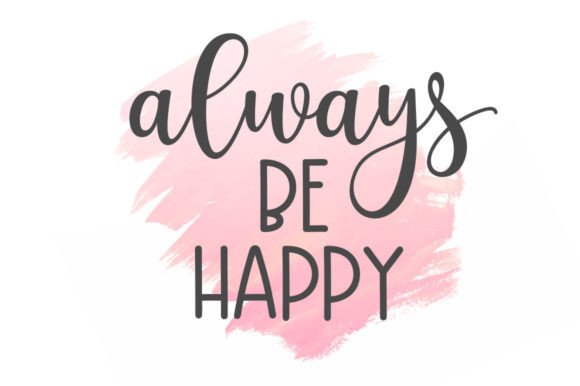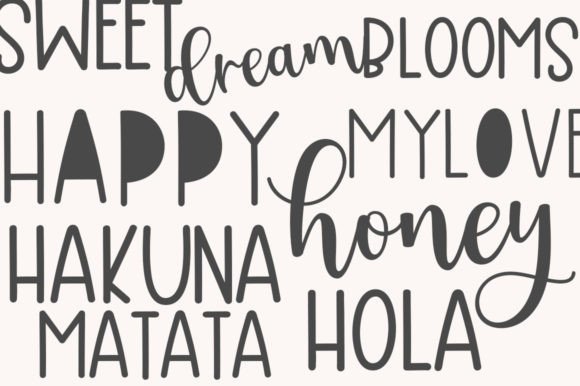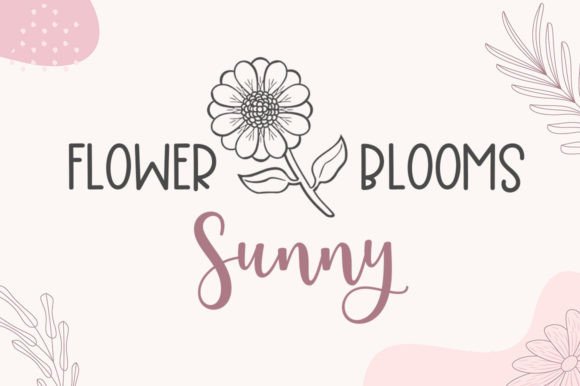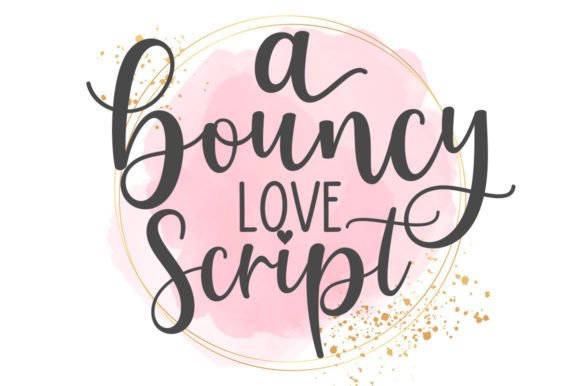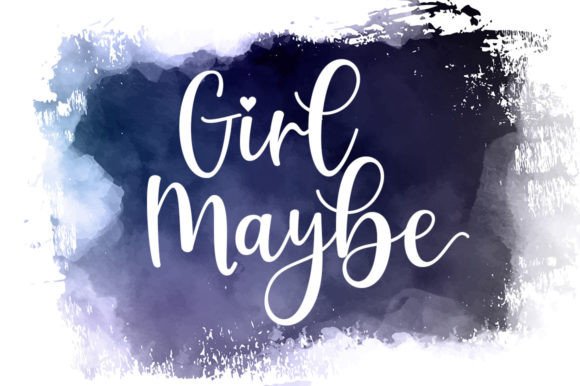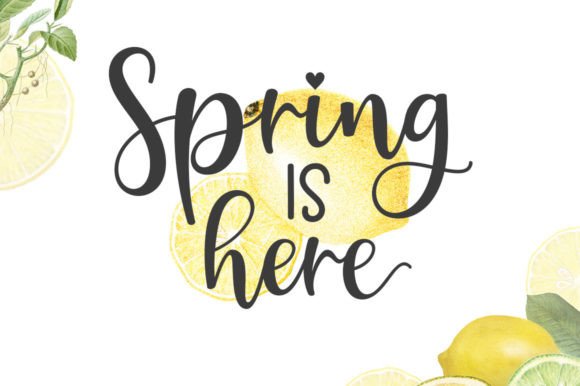
Discover the Charm of Hailey Trio Font: Elevate Your Designs with a Personal Touch
Are you on the hunt for a font that adds a personal and authentic feel to your designs? Look no further than the Hailey Trio Font. This lovely and beautiful handwritten font is perfect for creating a unique and eye-catching aesthetic that will make your projects stand out. With its natural and flowing strokes, Hailey Trio is ideal for a variety of design applications, from wedding invitations and greeting cards to social media posts and more.
The Unique Characteristics of Hailey Trio Font
So, what sets Hailey Trio apart from other fonts? For starters, its organic and natural design gives it a distinctive charm that’s hard to find in more traditional fonts. The flowing strokes and subtle imperfections of Hailey Trio create a sense of movement and fluidity, making it perfect for designs that require a personal touch. Additionally, the font’s legible characters ensure that your message is conveyed clearly and effectively, making it suitable for a wide range of applications.
Perfect for Wedding Invitations and Stationery
Wedding invitations, save-the-date cards, and other stationery designs are a perfect match for Hailey Trio Font. The font’s elegant and flowing script adds a touch of romance and sophistication to any design, making it ideal for couples looking to create a beautiful and memorable wedding stationery suite. Whether you’re a designer or a crafty DIY bride, Hailey Trio is sure to impress.
Adding a Personal Touch to Social Media and Marketing Materials
But Hailey Trio Font isn’t just limited to wedding invitations and stationery. Its unique and eye-catching design makes it perfect for adding a personal touch to social media posts, marketing materials, and more. Use it to create engaging and shareable content that stands out from the crowd, or incorporate it into your brand’s visual identity to add a touch of personality and whimsy.
Why Designers and Crafters Love Hailey Trio Font
So, why do designers and crafters love Hailey Trio Font? For one, its versatility and legibility make it suitable for a wide range of applications, from digital designs to print materials. Additionally, the font’s unique and eye-catching design ensures that your projects will stand out from the crowd, making it perfect for designers and crafters looking to create something truly special.
Tips for Using Hailey Trio Font in Your Designs
Ready to get started with Hailey Trio Font? Here are a few tips to keep in mind:
- Use it for headlines and titles to add a touch of elegance and sophistication
- Pair it with a sans-serif font for a beautiful and contrasting look
- Don’t be afraid to get creative and add your own personal touches
In conclusion, Hailey Trio Font is a beautiful and versatile handwritten font that’s perfect for adding a personal and authentic feel to your designs. With its natural and flowing strokes, legible characters, and unique design, it’s suitable for a wide range of applications, from wedding invitations and stationery to social media posts and marketing materials. Whether you’re a designer or a crafter, Hailey Trio is sure to become a go-to font in your collection.
Get Ready to Fall in Love with Hailey Trio Font
So, what are you waiting for? Discover the charm of Hailey Trio Font for yourself and elevate your designs with a personal touch. Whether you’re looking to create something beautiful and elegant or fun and playful, Hailey Trio is the perfect choice. Try it out today and see the difference it can make in your designs!